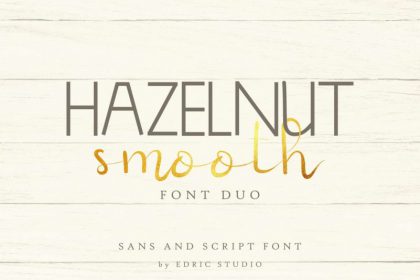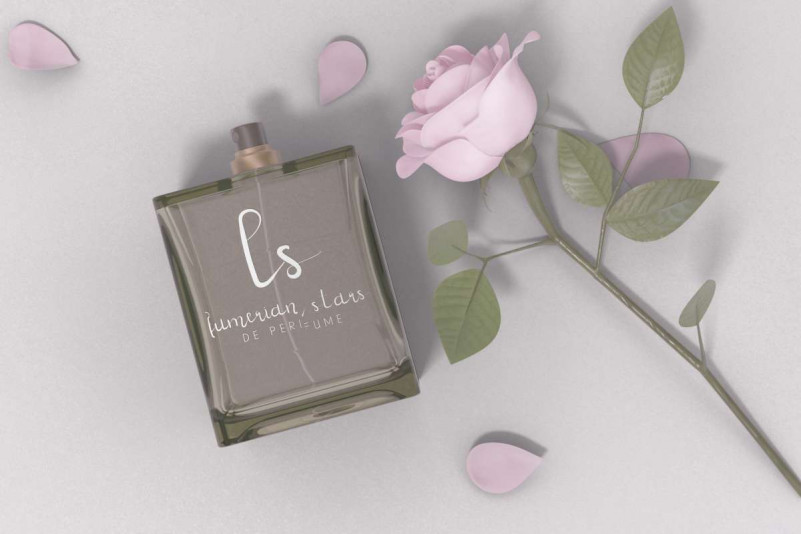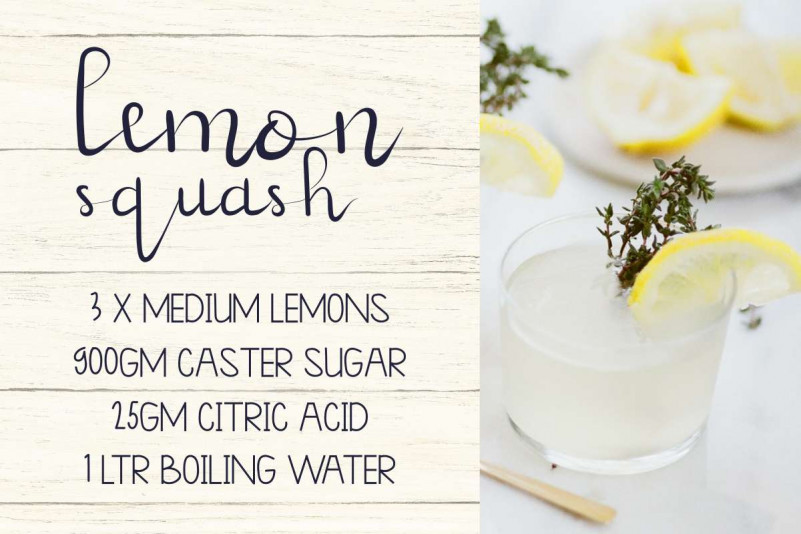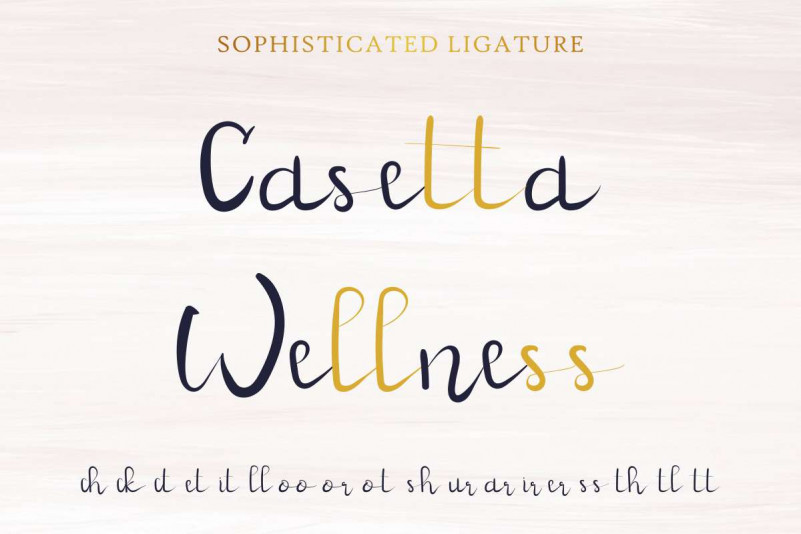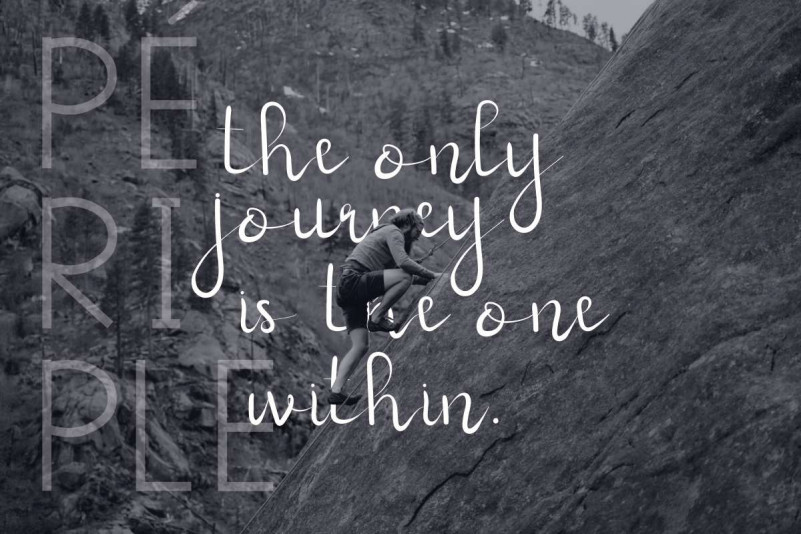
Hazelnut Smooth Font Duo
Today EdricStudio is going to present one of our latest font which is perfectly crafted from our studio. Please welcome : Hazelnut Smooth Font Duo. This new font is a Font Duo family, which has two different style font : Sans Serif and Handwriting Script. With these two styles you can explore many industries and designs categories. With an extendend licenses you can create anything you want : Branding (logo, stationery, bizcard, head letter, folder etc), promotions stuff (flyer, brochure, postcard etc), Digital marketing (Banner, Ads, cover etc), Personal Invitation, Magazine, Website etc